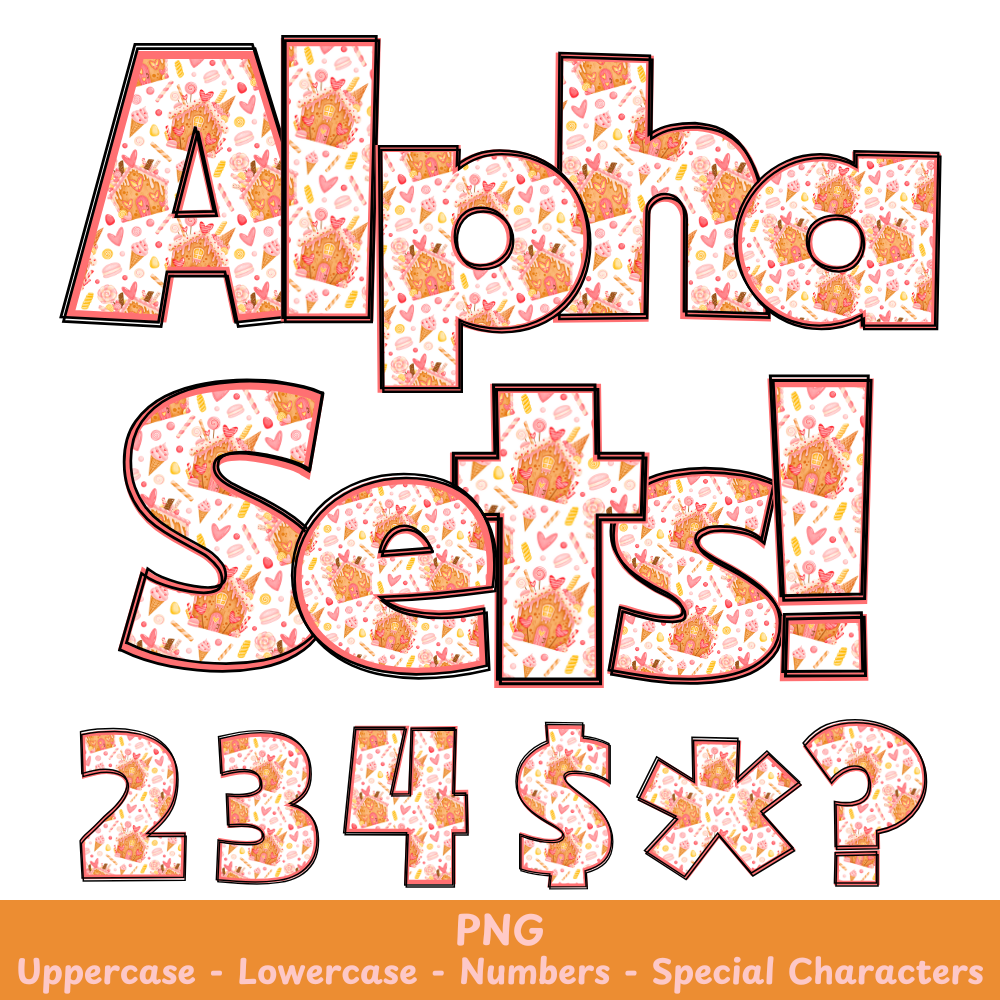
Valentine Gingerbread PNG Font
Valentine Gingerbread Alpha Set PNG Font Pack
This Valentine Gingerbread PNG Font can elevate your crafts and designs with its unique and charming style. Perfect for use in sublimation and other creative projects, it adds a delightful touch to your creations. The high-quality PNG format ensures easy customization and seamless integration into your designs.